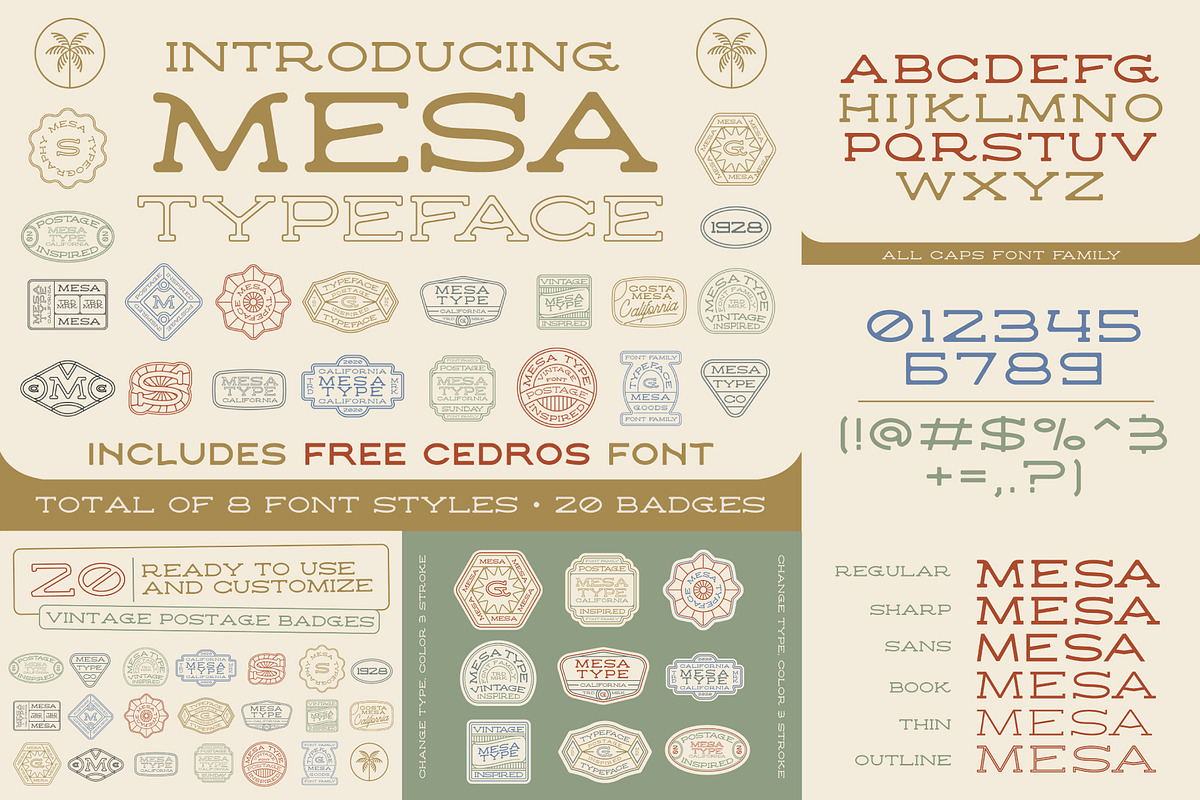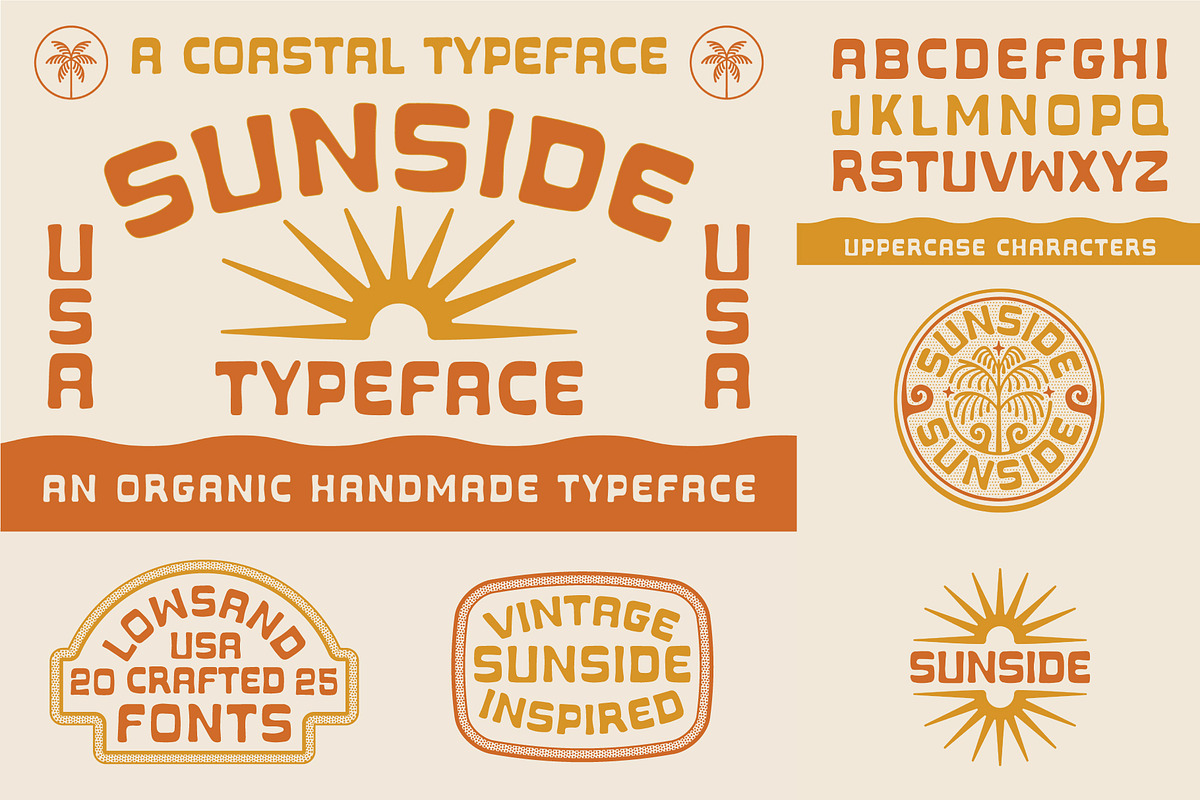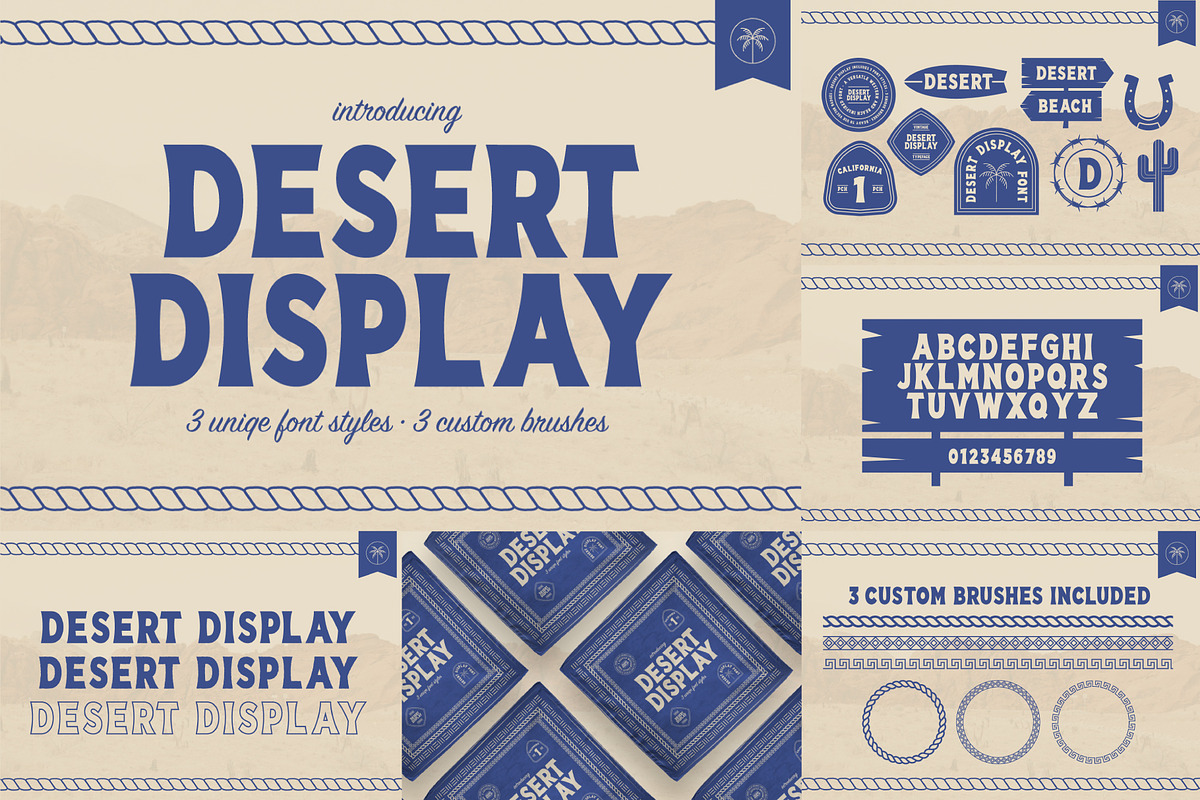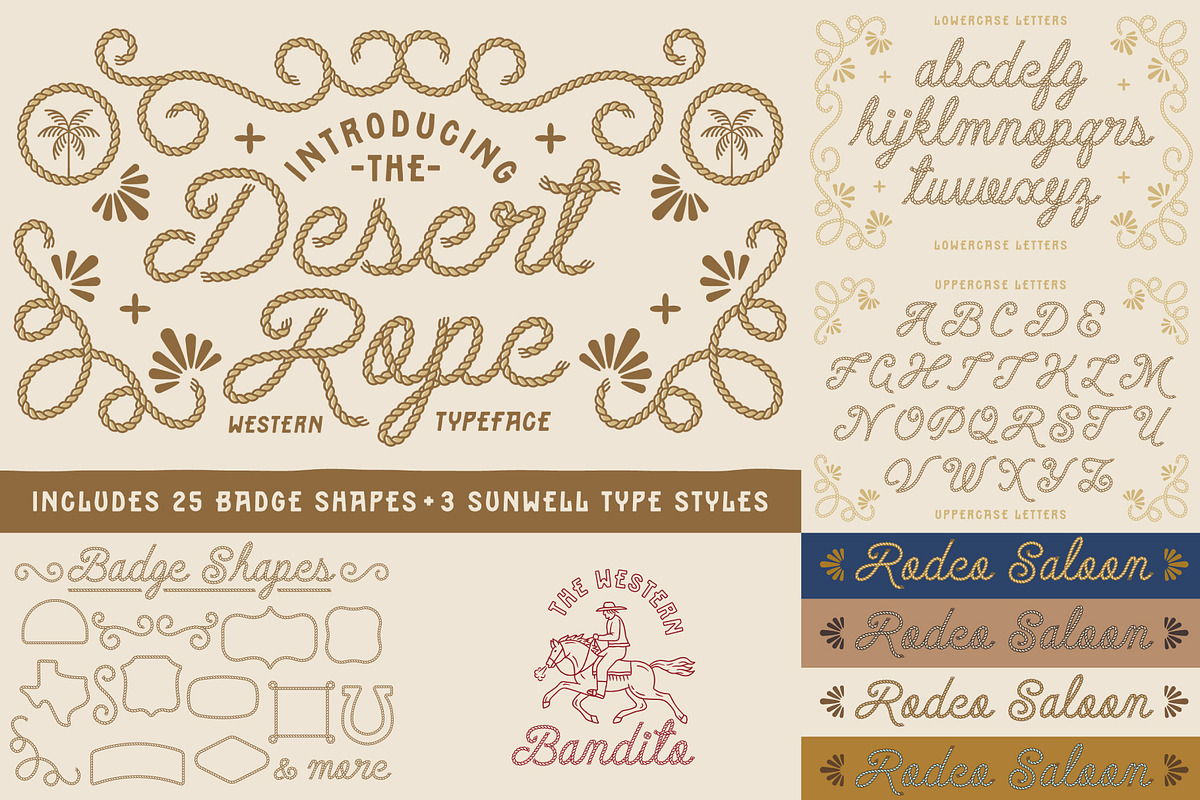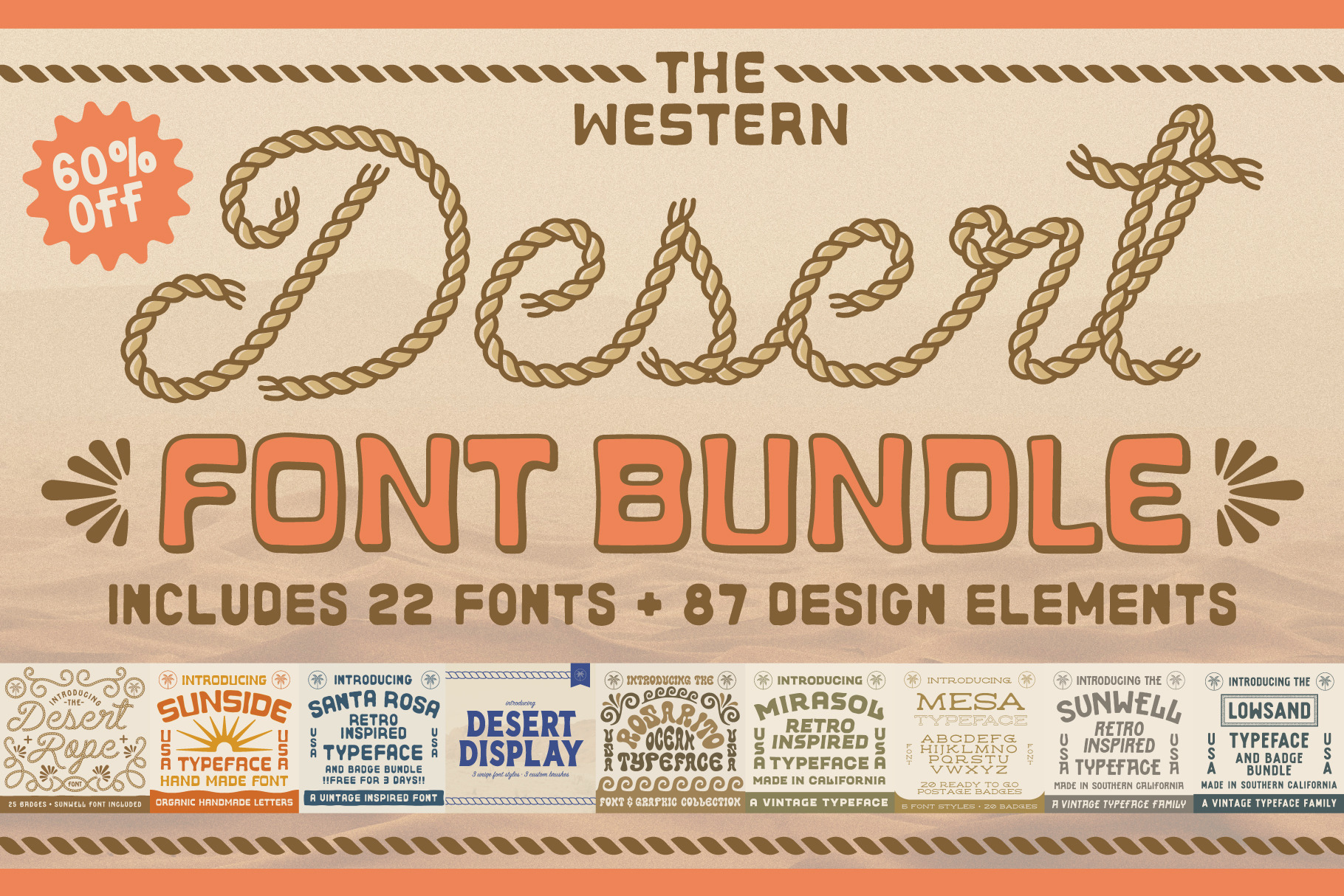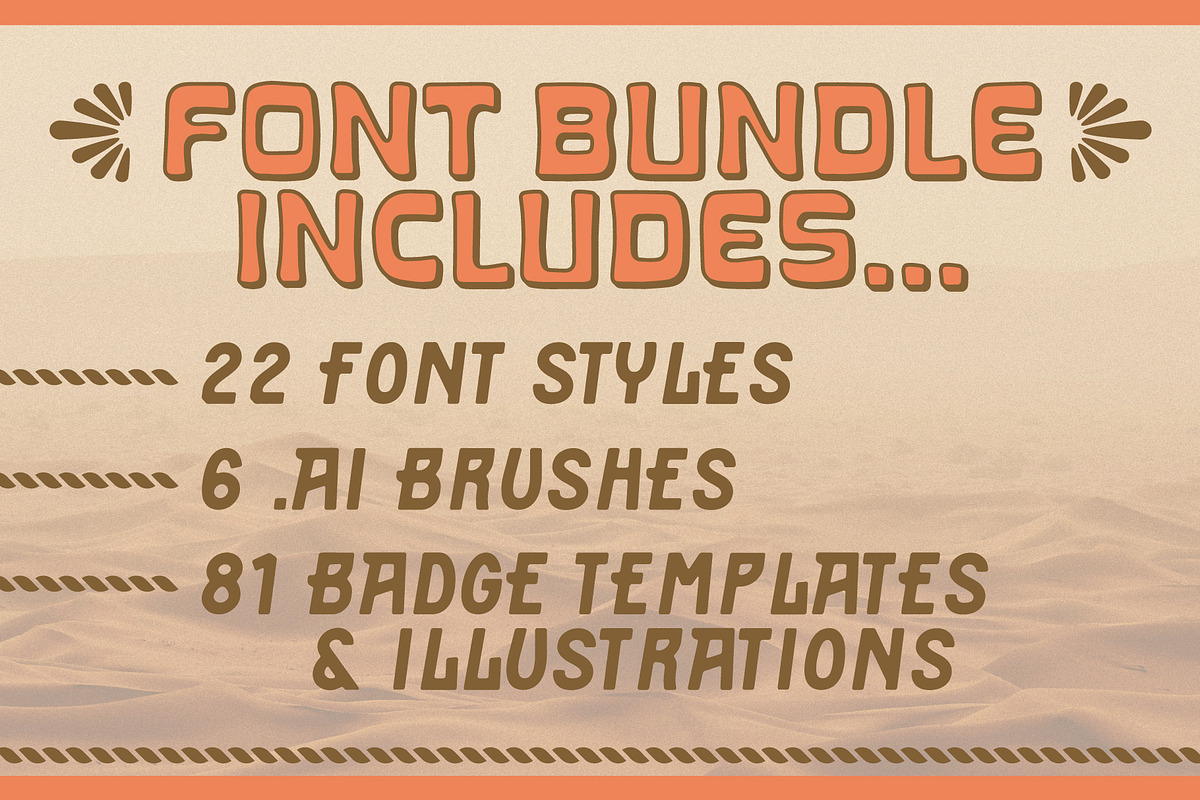
The Western Desert Font Bundle
22 fonts, 81 graphic templates & illustrations, 6 .AI Brushes
The Western Desert Font Bundle is a must-have collection of rugged, authentic western-style fonts from the NienowBrand type catalog. With 22 unique fonts, this bundle also includes 81 badge templates and illustrations, plus 6 Adobe Illustrator-compatible vector brushes. Whether you’re crafting a bold western design or adding a raw, gritty touch to your project, this bundle has everything you need to bring that to life.
Fonts Includes Are: